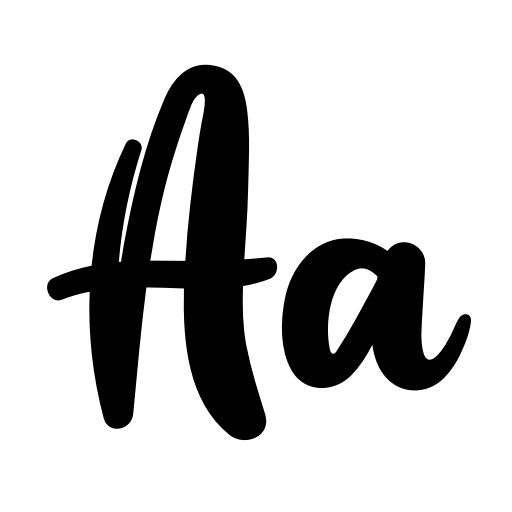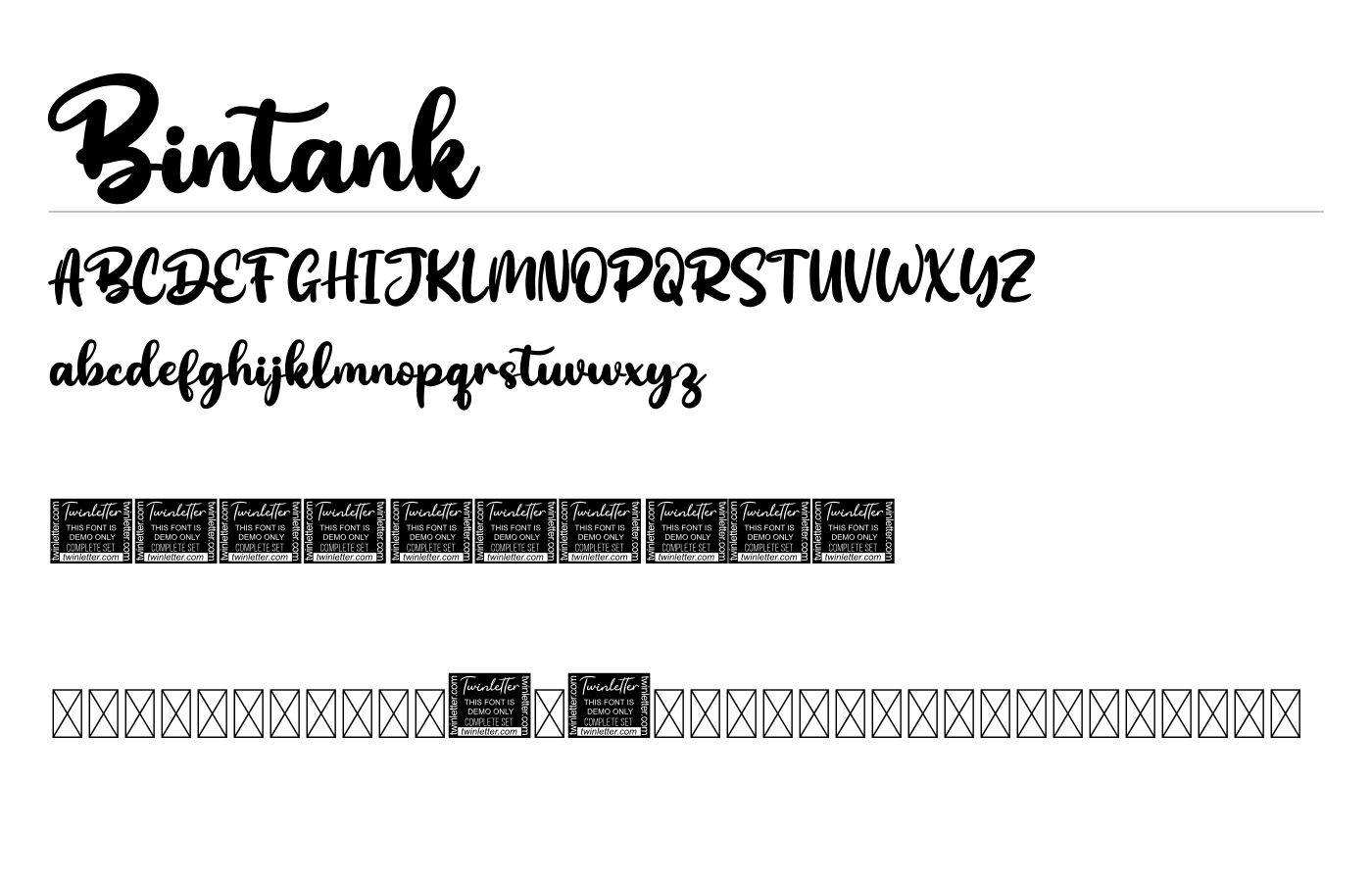
Bintank is a lively, handwritten script font with bold, flowing strokes and a playful yet polished feel. Its thick, smooth curves and connected letterforms give it a warm, friendly personality, making it perfect for branding, invitations, and creative projects seeking a personal touch. With its clear legibility and energetic style, Bintank works well in headlines and display designs that want to convey charm and approachability.
Bintank Font
About Bintank Font